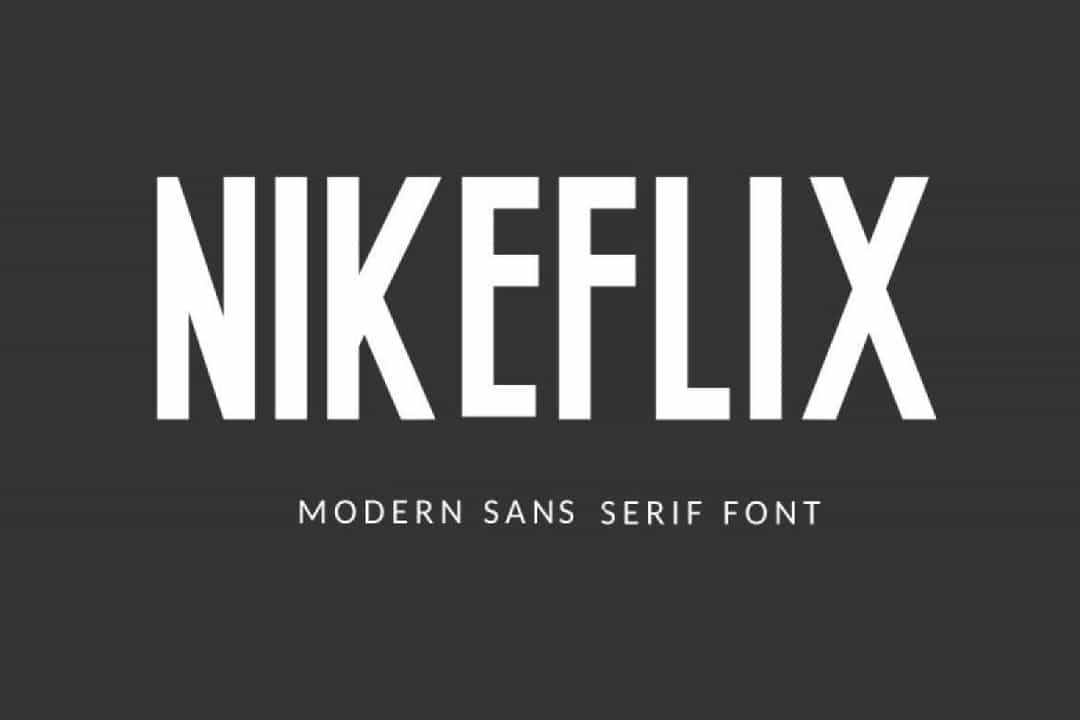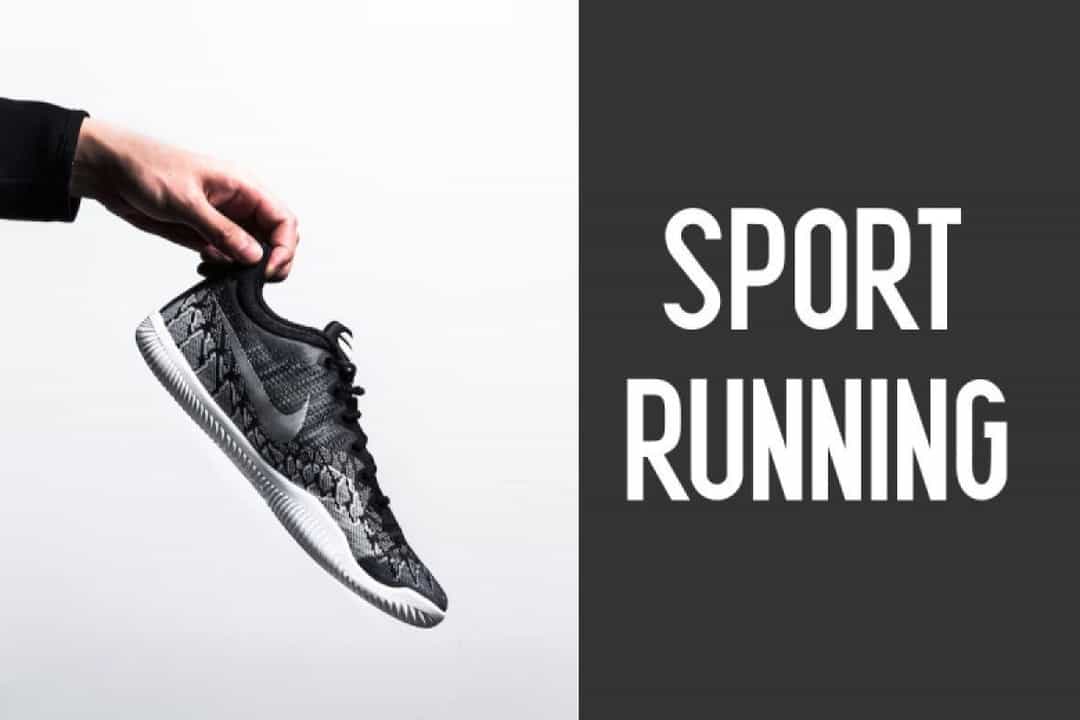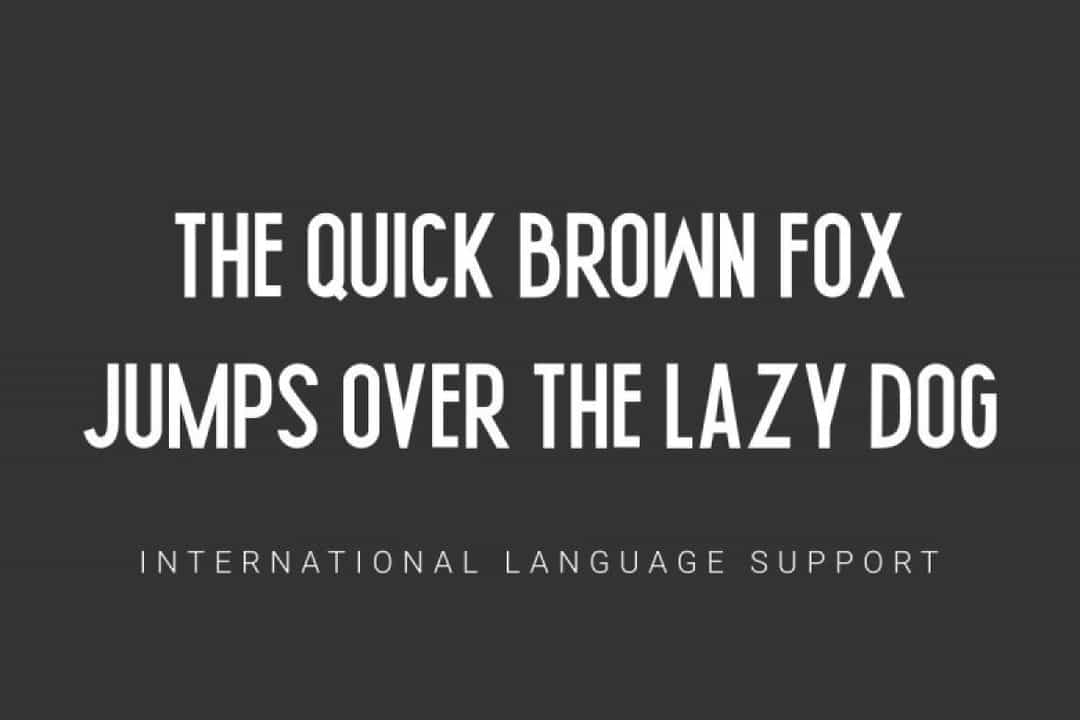
Nikeflix is an eye-catching sans serif font. Perfect for headlines, film posters, block letters and subheadings logo designs; as well as subheadings logo designs subheadings logo designs etc.